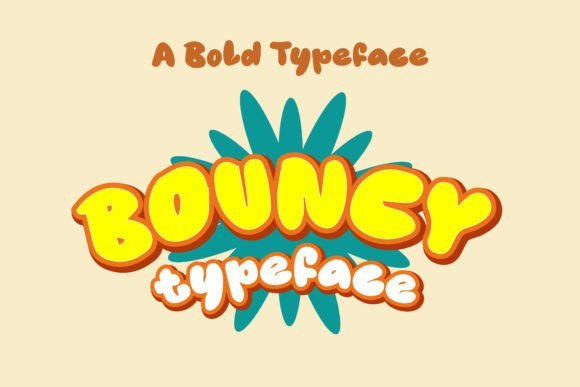
Introducing a Font that Brings Joy to Your Designs
Who hasn’t experienced the thrill of creating something new and seeing it come to life? For many designers, that moment of excitement often starts with selecting the perfect font. Imagine a font that not only conveys your message but also evokes a sense of playfulness and energy. Welcome to the world of the Bouncy Font, a lively and inviting typeface designed to bring a smile to your audience’s faces.
The Bouncy Font is more than just a typeface – it’s an expression of joy. With its rounded, balloon-like shapes and soft edges, this font creates a lighthearted atmosphere that’s perfect for designs that aim to be inviting, cheerful, and vibrant. Whether you’re working on a children’s book, a playful brand, or a social media campaign, the Bouncy Font is an excellent choice for adding a touch of whimsy and approachability to your work.
Bouncy Font Key Features
- Font Family: Bouncy Font is a sans-serif font family, designed to be playful and energetic.
- Unique Characteristics: Bouncy Font features a unique, hand-drawn design with a bouncy, energetic feel. Each letter has a subtle, irregular shape that adds to its playful personality.
- Style Variations: Bouncy Font comes in a range of styles, including regular, bold, italic, and bold italic, allowing users to add variety and emphasis to their text.
Bouncy Font Review
Overall, I think Bouncy Font is a fun and quirky addition to any design project. ✨ The bouncy feel of the font really adds a playful touch to text, making it perfect for headings or titles that need a bit of personality.
One of the things that works particularly well about Bouncy Font is its ability to add a sense of movement and energy to static text. ✨ It’s great for designing animations, motion graphics, or even just adding some visual interest to a website or social media post.
Some limitations of Bouncy Font include its somewhat limited character set, making it difficult to use in longer blocks of text. ⚠️ Additionally, the font can feel a bit overwhelming if used too extensively, so be sure to balance it with more traditional fonts to avoid visual fatigue.
- Playful, bouncy feel
- Perfect for headings, titles, and animations
- Great for adding visual interest to text
- Limited character set
- Can be overwhelming if used too extensively
Use the Bouncy Font to add a playful and energetic touch to your designs.
Combine the Bouncy Font with other creative elements, such as graphics and animations, to create a visually appealing design.
Use the Bouncy Font for:
Children’s educational materials, such as worksheets and posters.
Social media graphics and advertisements.
Event invitations and flyers.
Alternatives to Bouncy Font
Lobster is a fun and playful font that is perfect for adding a touch of whimsy to your designs. It is ideal for titles, headings, and body text that need a bold and attention-grabbing feel.